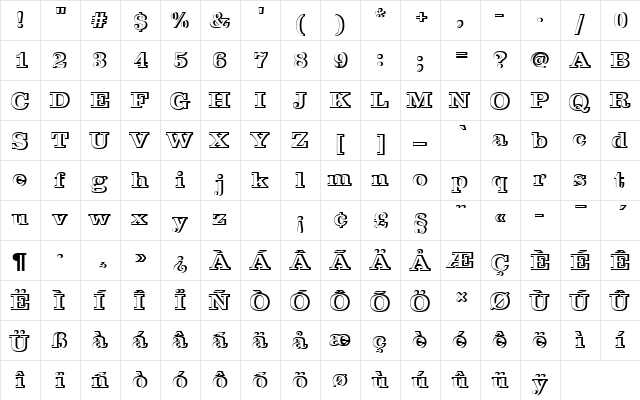
ClarendonTBolRe1 Regular
Design Context for ClarendonTBolRe1 Typeface
ClarendonTBolRe1 combines the readability of serif typography with the visual weight of a slab construction, resulting in a typeface that feels both authoritative and approachable.
Suited to magazines, political campaign materials, bold packaging, and any setting where authority matters.
Pro Tip: Use ClarendonTBolRe1 for headlines and subheadings where its slab serifs can make an impression. It also holds up well in mid-size body copy thanks to its sturdy construction.